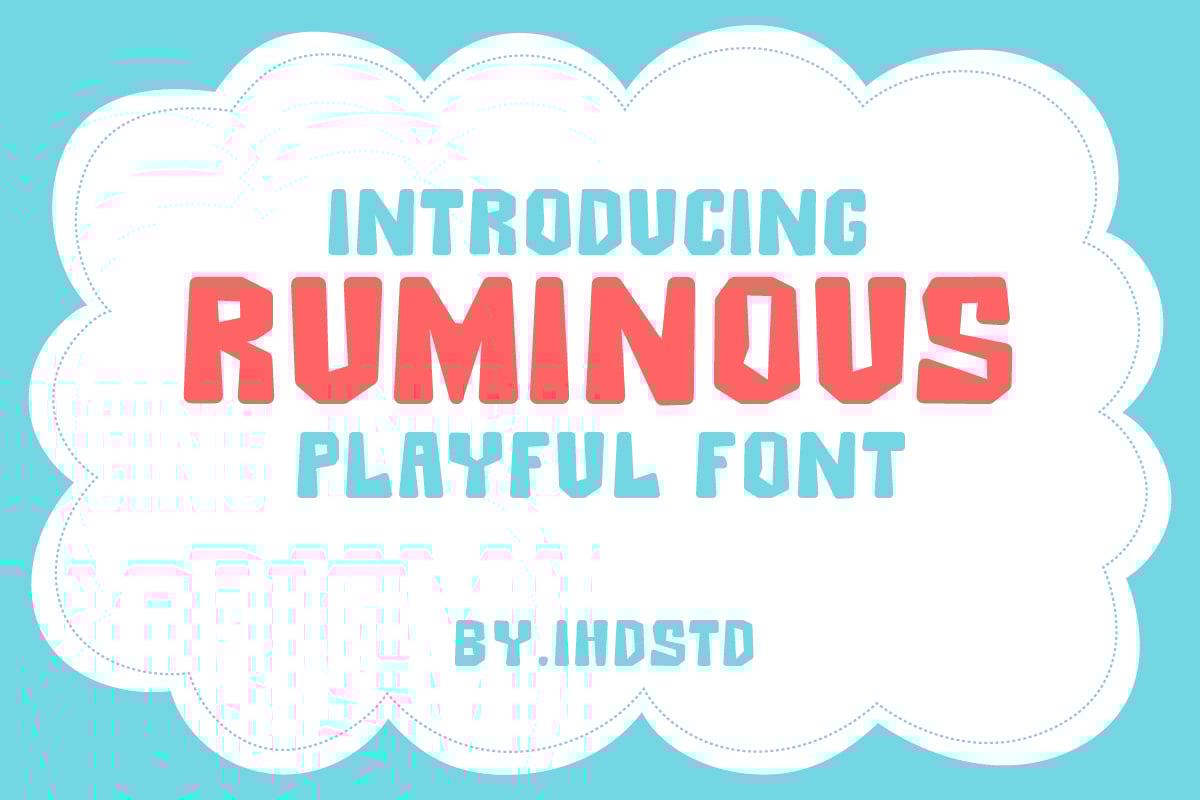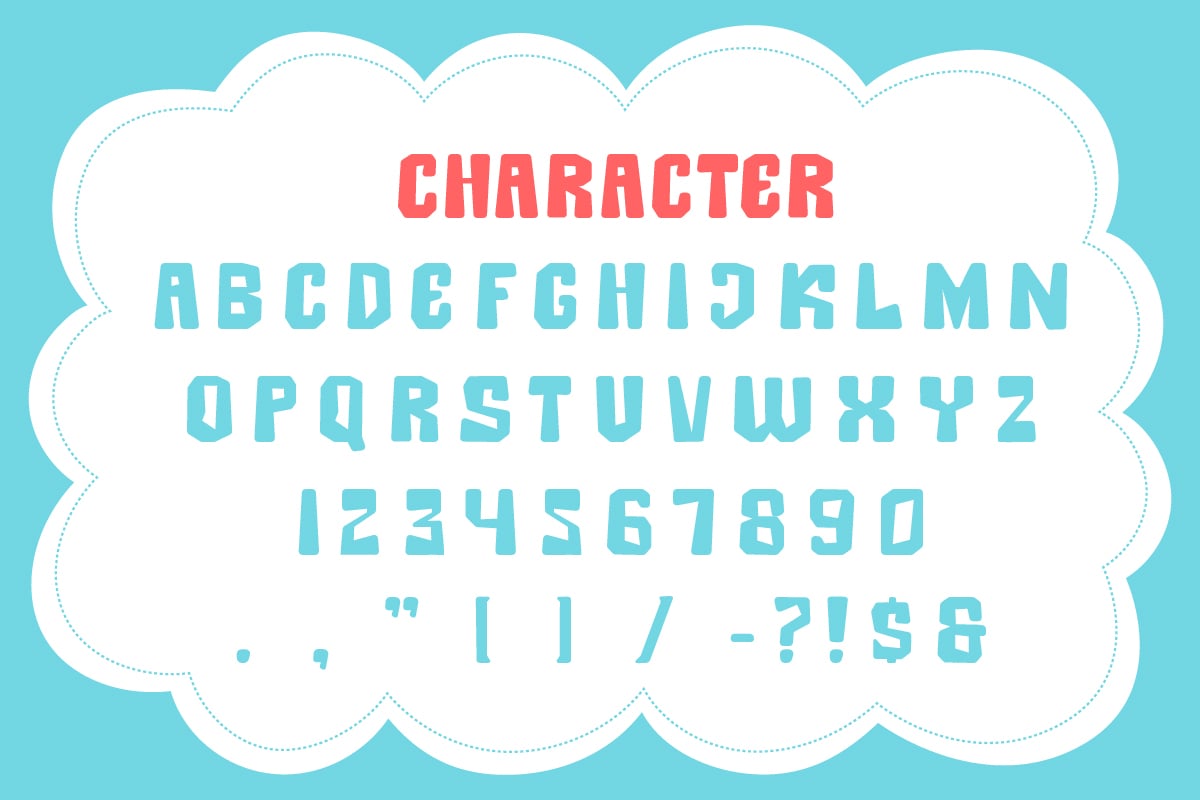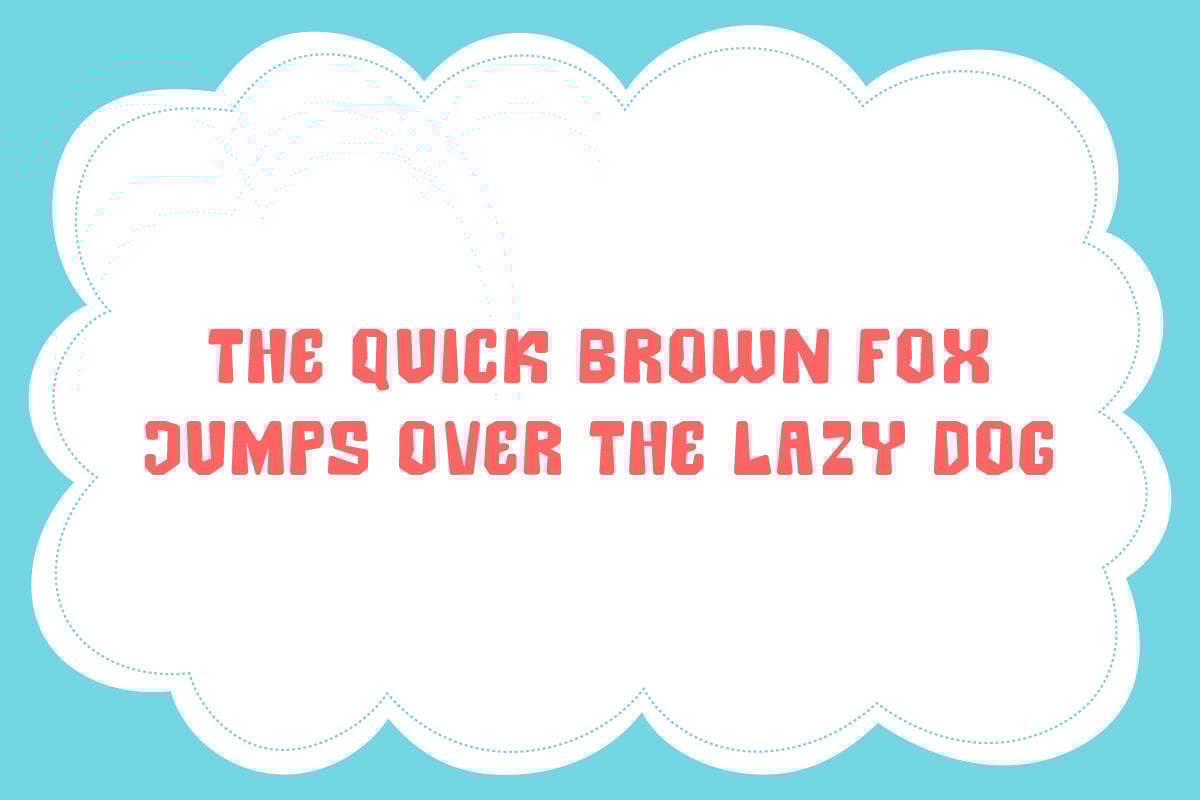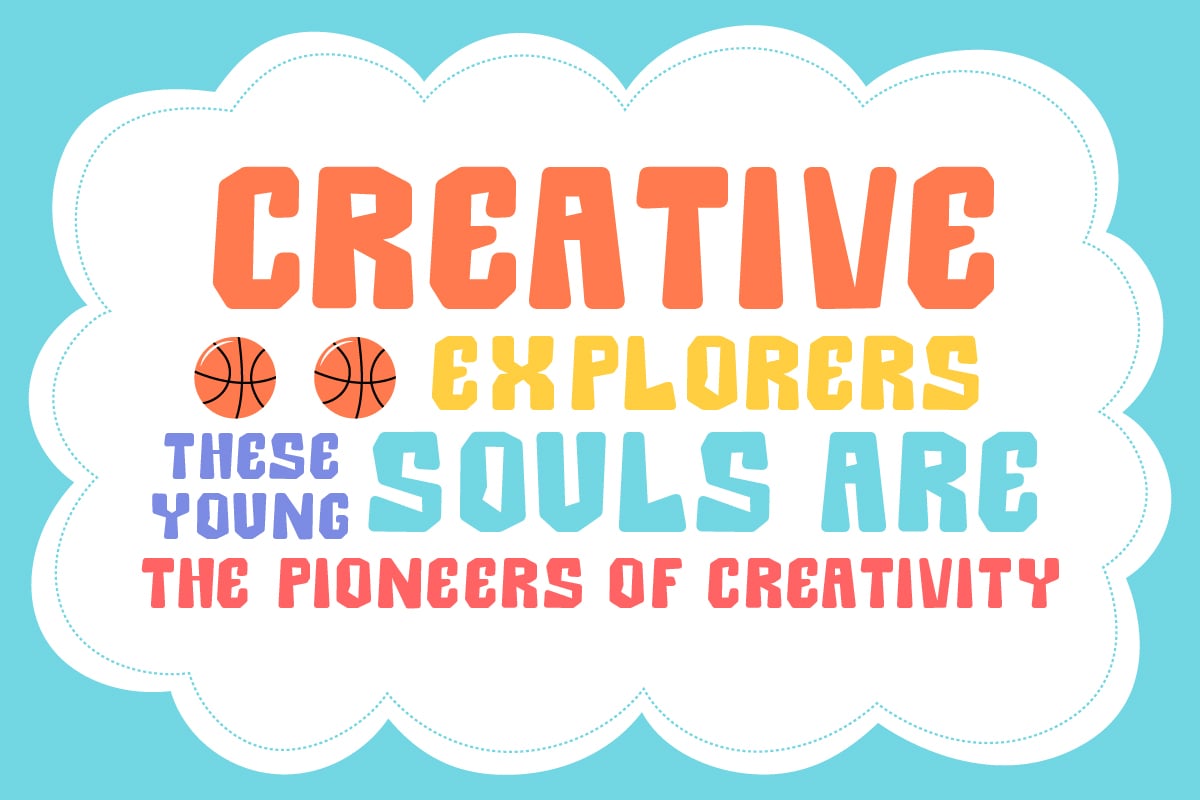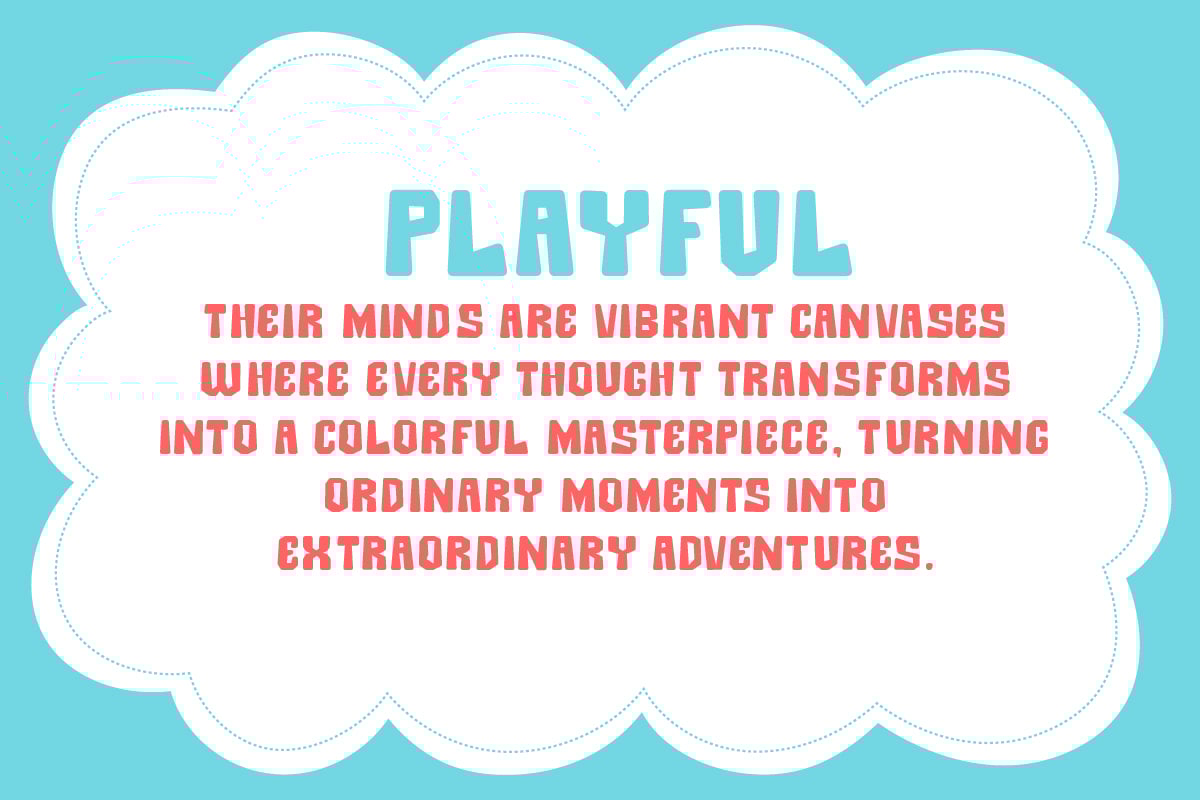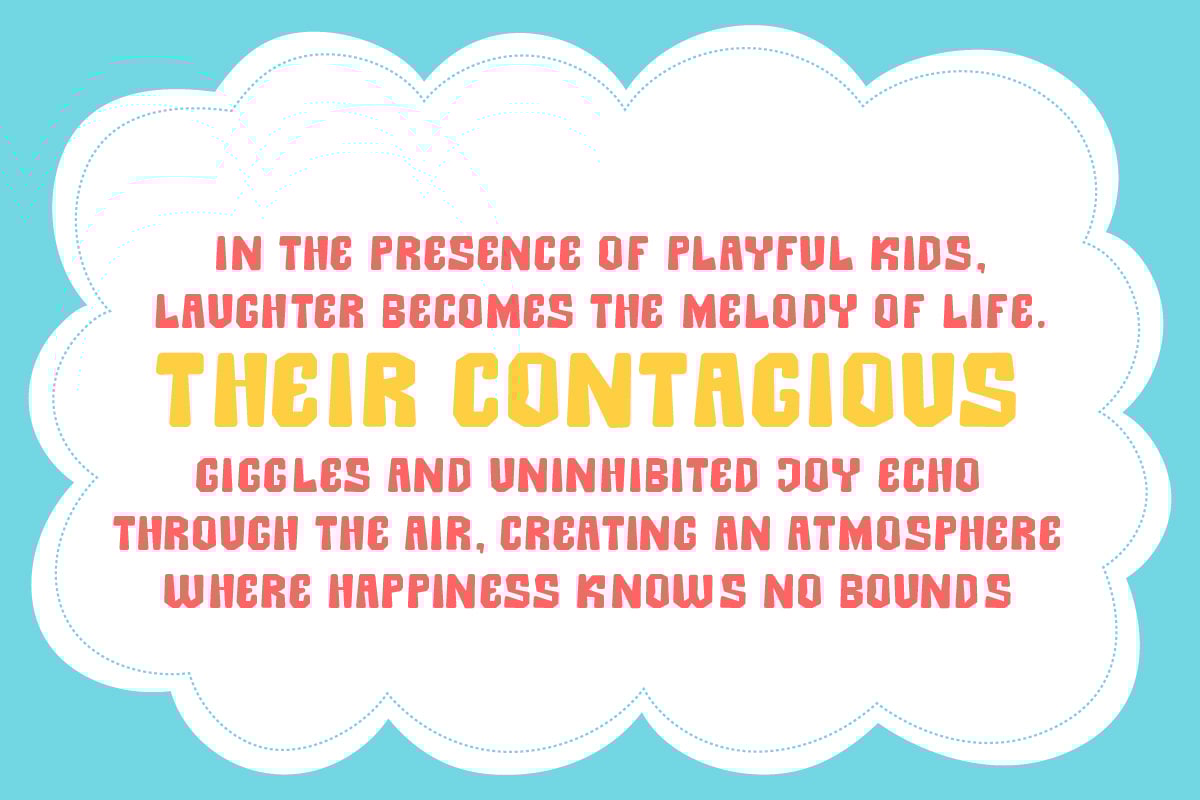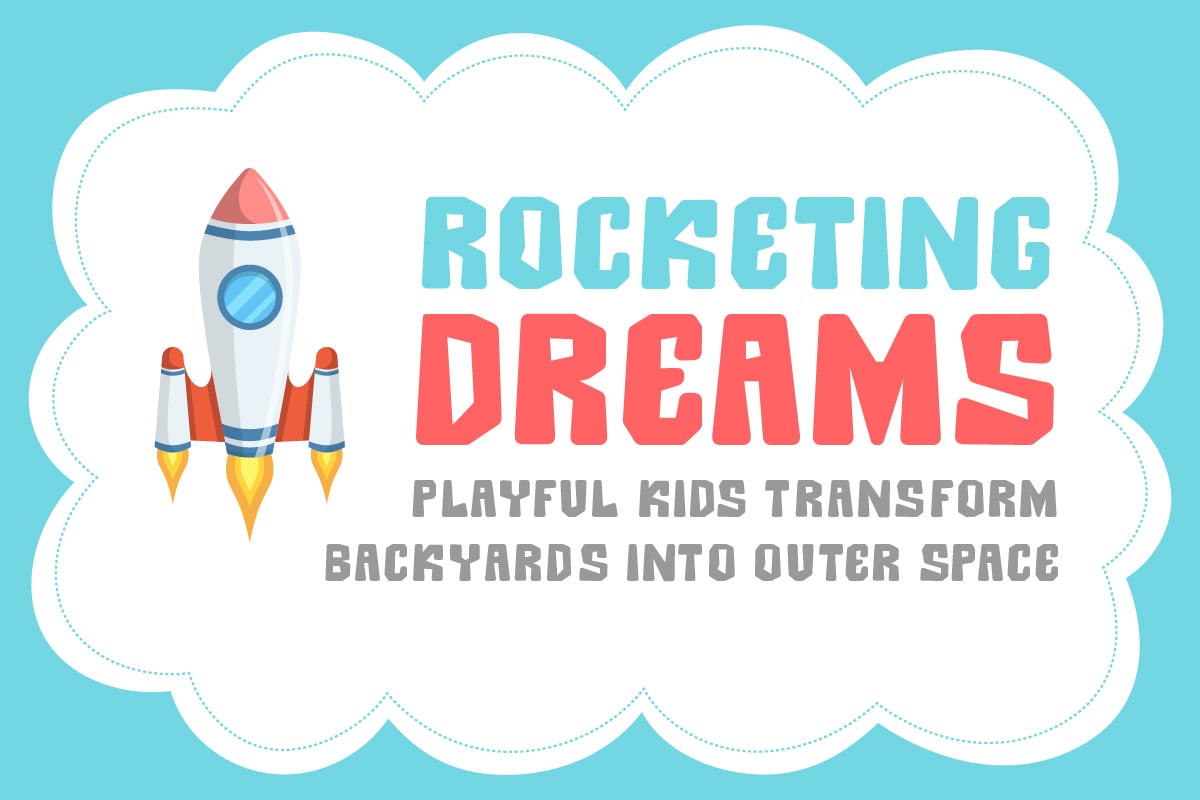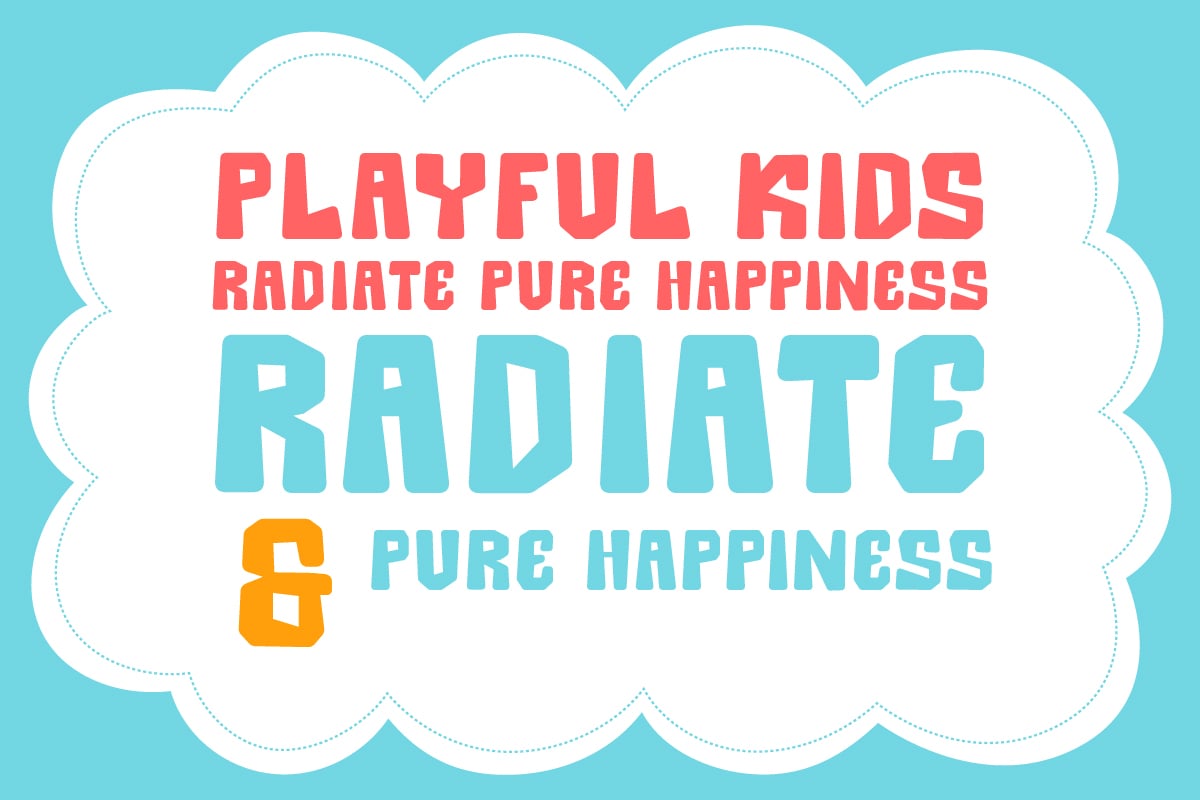
Ruminous Playful Font
Ruminous playful font is our new item suitable for your Posters.
Great for Logo, Poster, Sticker, Jerseys, Invitation Card, Brochure, etc.